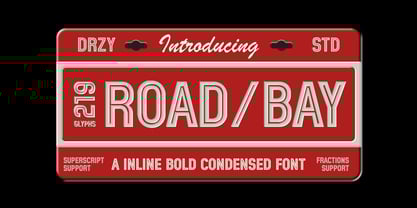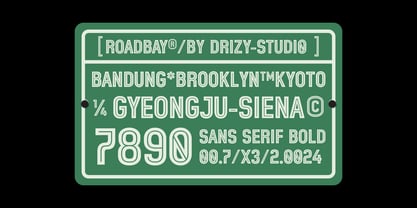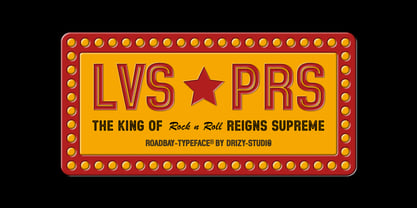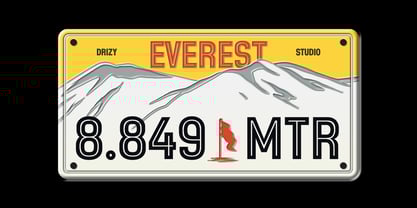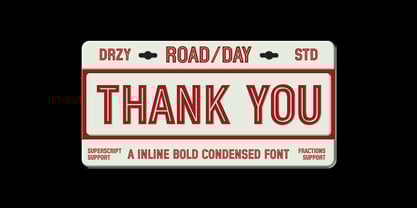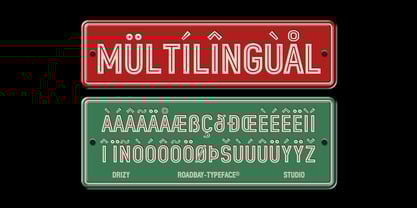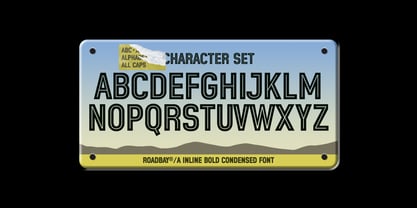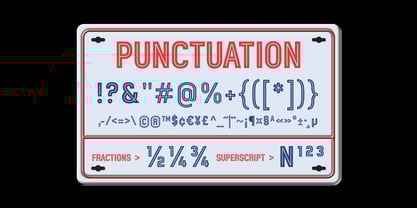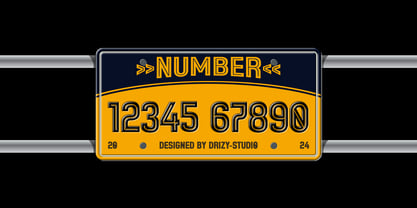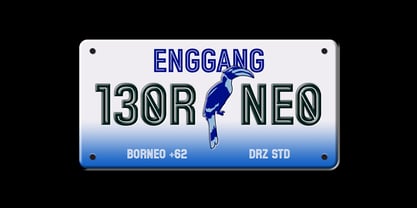
Roadbay
von Drizy Font
Die Schriftfamilie Roadbay wurde von Panca Ahmadi Hasan entworfen und von Drizy Font veröffentlicht. Roadbay enthält 1 Stile. Mehr über diese Familie
Roadbay – Inline Bold Condensed Font
Introducing Roadbay Inline Bold Condensed: the font that will redefine your designs with its sleek, bold, and dynamic character. Perfectly crafted for those who are unafraid to make a statement, Roadbay Inline Bold Condensed embodies modernity and efficiency, offering a blend of sophistication and readability that’s hard to find.
Roadbay features:
• Character Set
• Punctuation & Numbers
• Multilingual
Designer: Panca Ahmadi Hasan
Foundry: Drizy Font